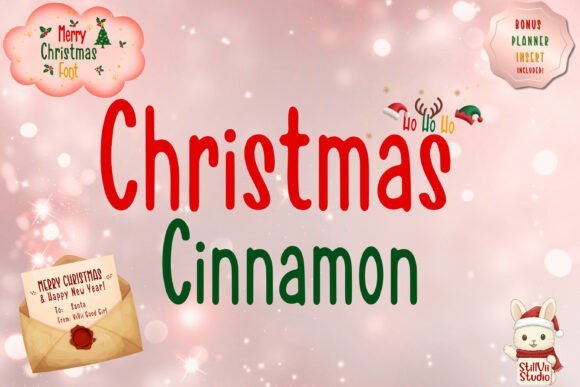
Warm Up Your Designs with the Perfect Holiday Font
It’s that time of the year again – the snowflakes start falling, hot cocoa warms our hands, and the urge to get creative strikes. As you sit by the fireplace, flipping through your favorite design inspiration boards, you can’t help but feel a pang of excitement. This year, you’ve been dreaming of the perfect font to add a pinch of warmth and spice to your holiday projects. Enter the Christmas Cinnamon Font – a tall, dark, and cozy font that’s about to become your new go-to.
This skinny sans-serif font is designed to add a touch of rustic charm to your designs, making it perfect for a variety of projects, from farmhouse signs to personalized gifts. Its condensed height allows you to fit more text into small spaces, making it a valuable asset for designers who want to maximize their creative potential.
Christmas Cinnamon Font Key Features
- Font Family: Christmas Cinnamon, a unique and festive font designed to evoke the spirit of the holiday season.
- Character Set: Supports a wide range of characters, including Latin, Cyrillic, and Greek alphabets, making it suitable for multilingual designs.
- Unique Characteristics: Features a warm, inviting, and playful aesthetic, with intricate details and ornaments that add to its festive charm.
Designer Review: Christmas Cinnamon Font
Overall, I think the Christmas Cinnamon Font is a lovely addition to any holiday-themed design project. ✨ The font’s unique blend of modern and traditional elements really captures the essence of Christmas. I love how the font’s curves and lines evoke a sense of warmth and coziness, making it perfect for holiday branding, invitations, and even packaging.
Here are some specific things that work well about the font:
- ✨ The font’s consistency across different weights and styles is impressive, making it easy to use in various design contexts.
- ✨ The font’s legibility is excellent, even at smaller font sizes, which is essential for body text or captions.
- ✨ The font’s unique character set includes a range of festive symbols and icons, which can add a fun touch to holiday designs.
However, I do have a few concerns about the font’s limitations:
- ⚠️ The font may be too playful or over-the-top for more minimalist or modern holiday designs.
- ⚠️ The font’s complexity may make it difficult to use in small or constrained design spaces, such as social media avatars or mobile apps.
Overall, I think the Christmas Cinnamon Font is a great choice for holiday designs that need a touch of warmth and whimsy. While it may not be suitable for every project, it’s a great option for designers looking to add some festive flair to their work.
Use the Christmas Cinnamon Font to add a festive touch to your designs, such as:
- Christmas cards and invitations